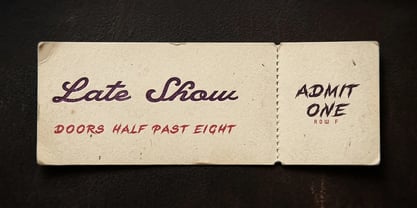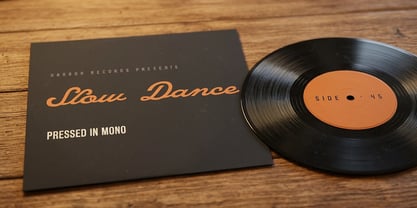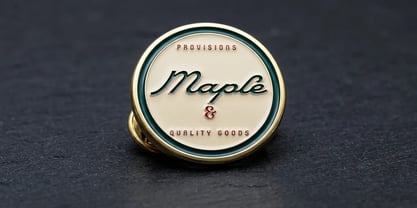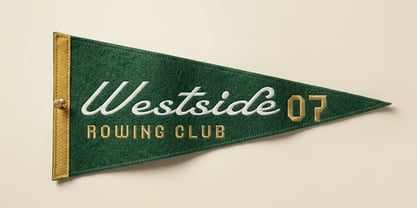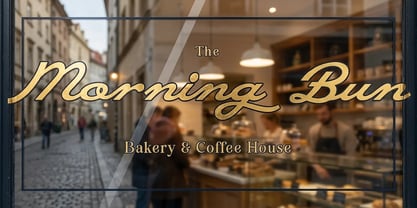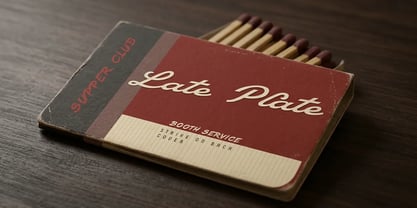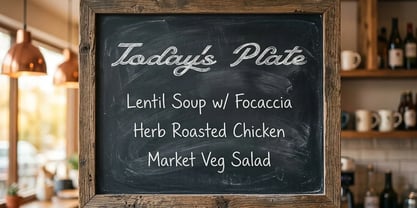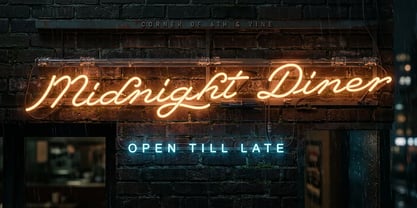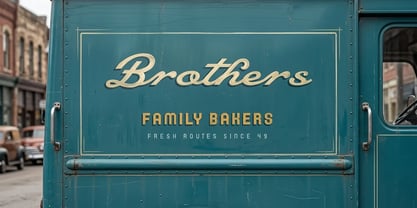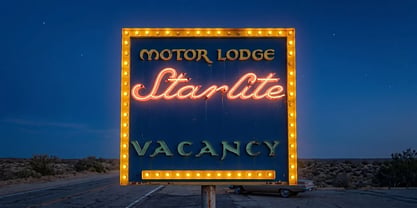
Linden Avenue
Linden Avenue is a looping, slanted sign-painter script with a warm mid-century feel.
The letters flow with a confident, near-monoline stroke and long sweeping tails, the rhythm of a brush moving fast and sure across a freshly painted shop window. It carries the easy charm of vintage storefronts, diner fronts and roadside signs - relaxed, friendly and full of movement, equally at home on a bakery awning, a record sleeve or a hand-lettered hero line.
The font is built with advanced functionality and guaranteed top-notch quality, containing stylistic and contextual alternates, ligatures and more automatic and manual features; all to give you full control and customizability.
It has extensive lingual support, covering all Latin-based languages, from North Europa to South Africa, from America to South-East Asia. It contains all characters and symbols you'll ever need, including all punctuation and numbers.